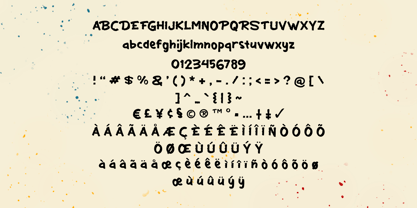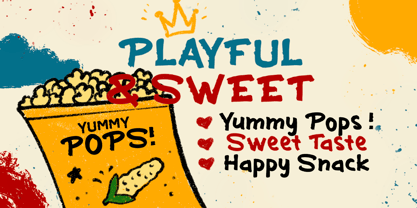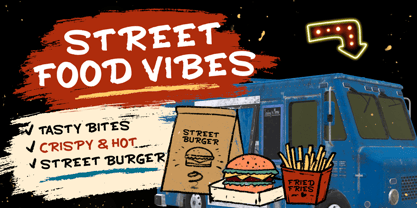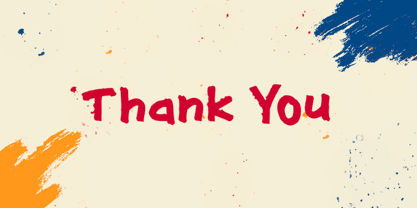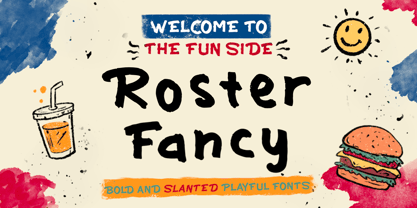
Roster Fancy
by Letterytz CalliType
The Roster Fancy Font Family was designed by Wahyu Eka Prasetya, Dian Angga Marytama and published by Letterytz CalliType. Roster Fancy contains 2 styles and family package options. More about this family
Roster Fancy – Playful Brush Display Font
Roster Fancy is a bold and playful brush display font crafted with an expressive handmade touch. Featuring chunky strokes, organic curves, and a fun energetic personality, this font instantly brings warmth and creativity into your designs.
Its casual handwritten style creates a friendly and approachable look while still maintaining strong visual impact. Roster Fancy is perfect for branding, snack packaging, kids-themed projects, posters, merchandise, social media content, quotes, and creative headlines.
Designed with natural brush imperfections and bold letterforms, Roster Fancy delivers an authentic handcrafted vibe that feels modern, artistic, and full of character.
Features:
✔ Bold playful brush style
✔ Handcrafted organic strokes
✔ Fun and energetic personality
✔ Perfect for branding & packaging
✔ Great for posters, quotes, and social media
✔ Multilingual support
Designers: Wahyu Eka Prasetya, Dian Angga Marytama
Foundry: Letterytz CalliType